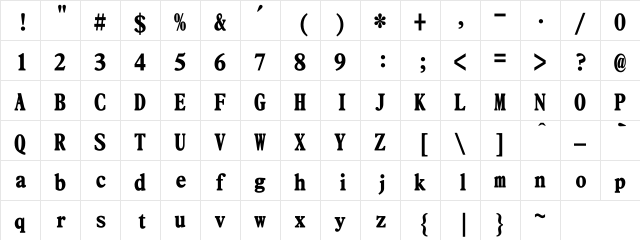
DFLiKingHeiU-XB Regular
Design Context for DFLiKingHeiU-XB Typeface
DFLiKingHeiU-XB takes a measured approach to typography — its balanced proportions and neutral character make it a reliable workhorse for both digital and print work.